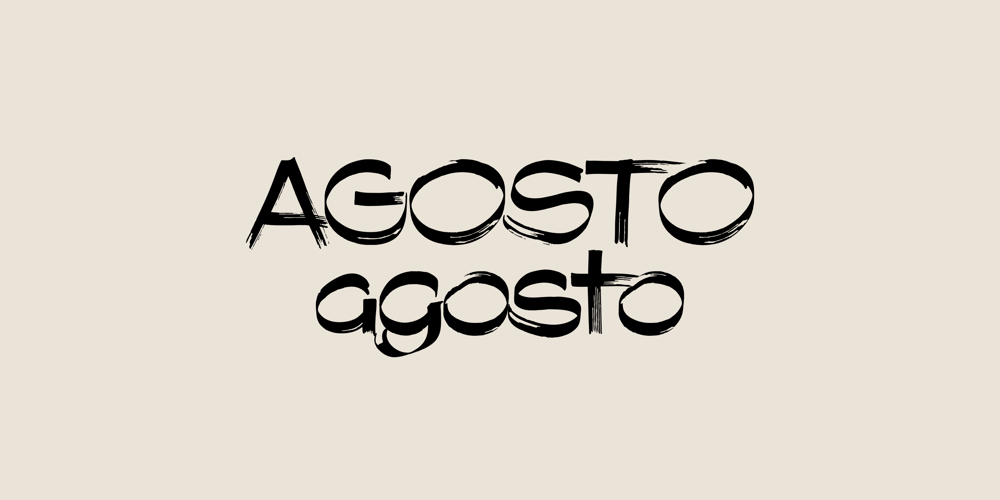
Agosto Font Family was designed by Stefano Giliberti and published by Stefano Giliberti. Agosto contains 2 styles and family package options. Agosto is a font family created by Stefano Giliberti. Each glyph it includes has been drawn by hand on paper resulting in a truly unique, inimitable design. Agosto supports 118 languages, features a total of 510 glyphs and includes an italicized version.